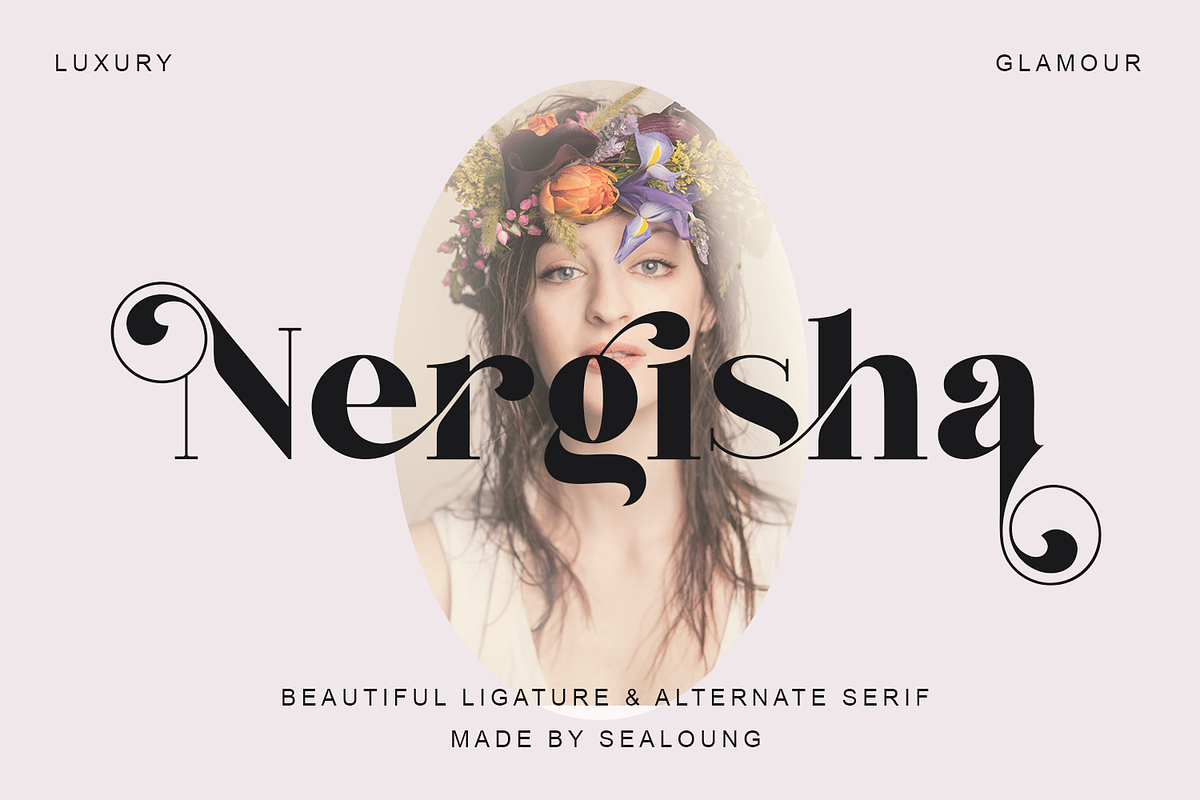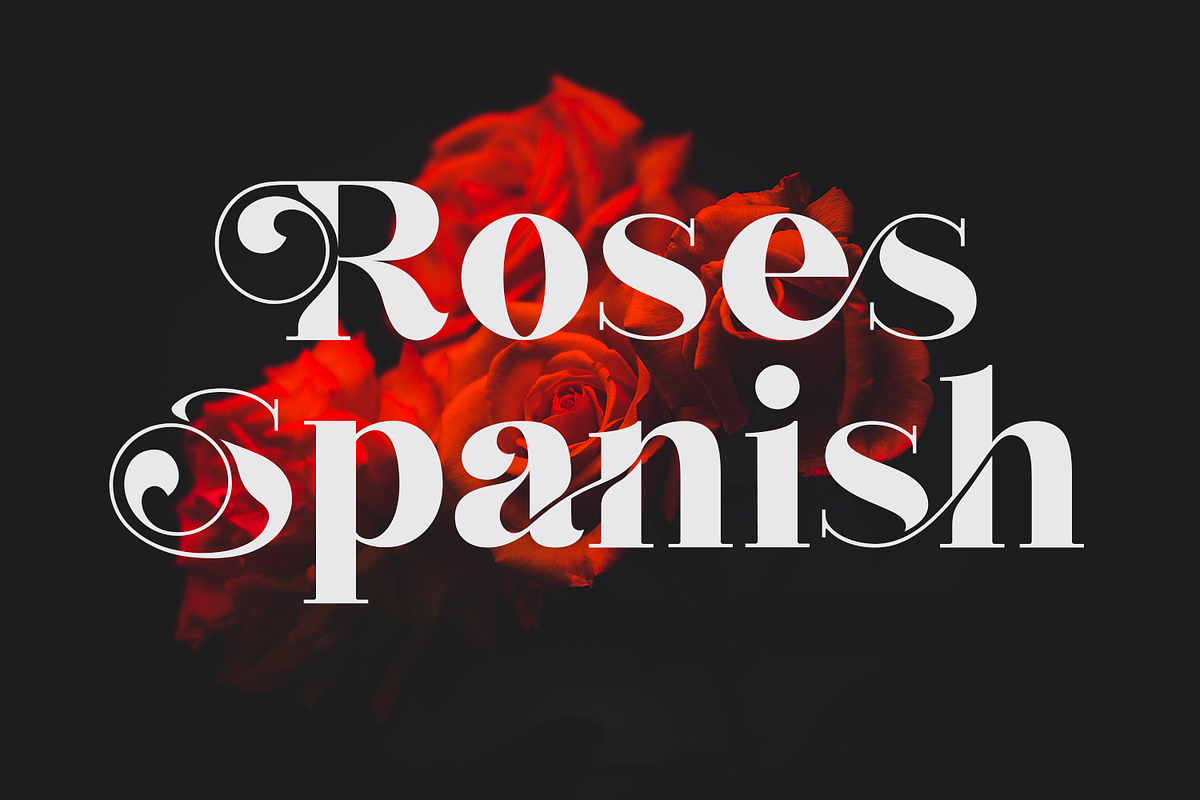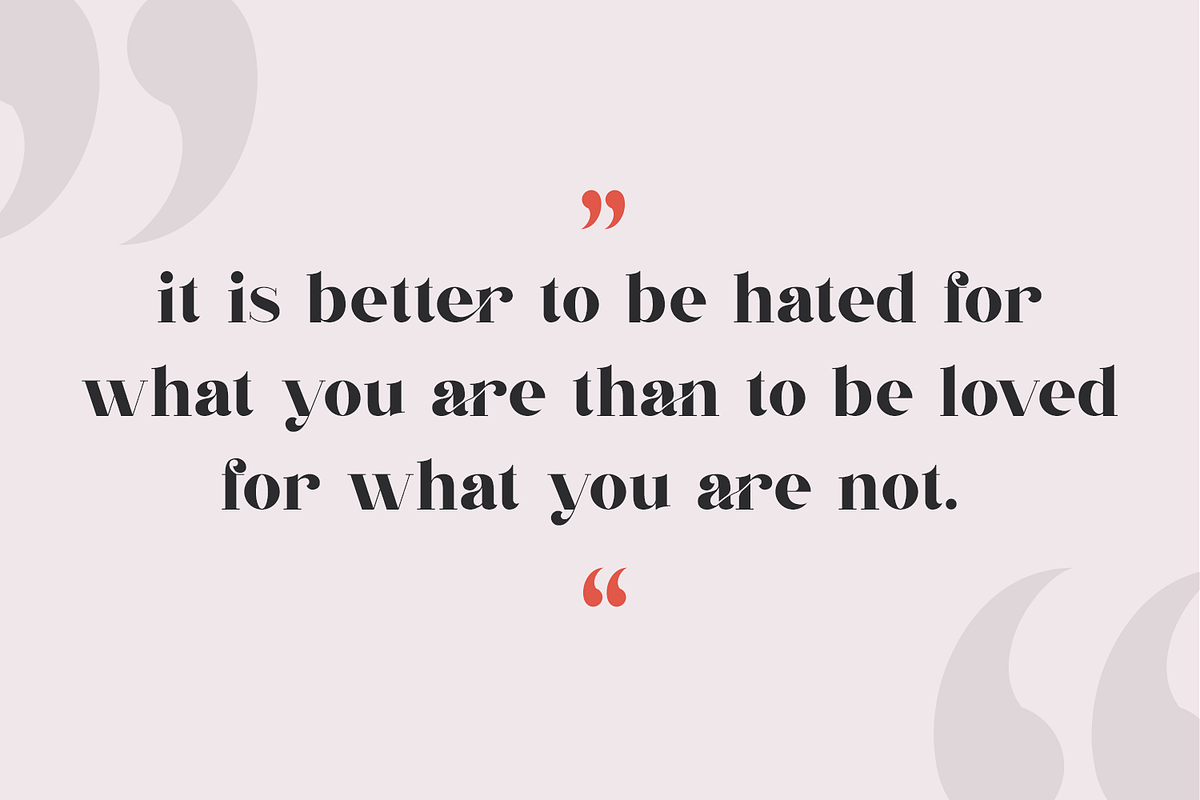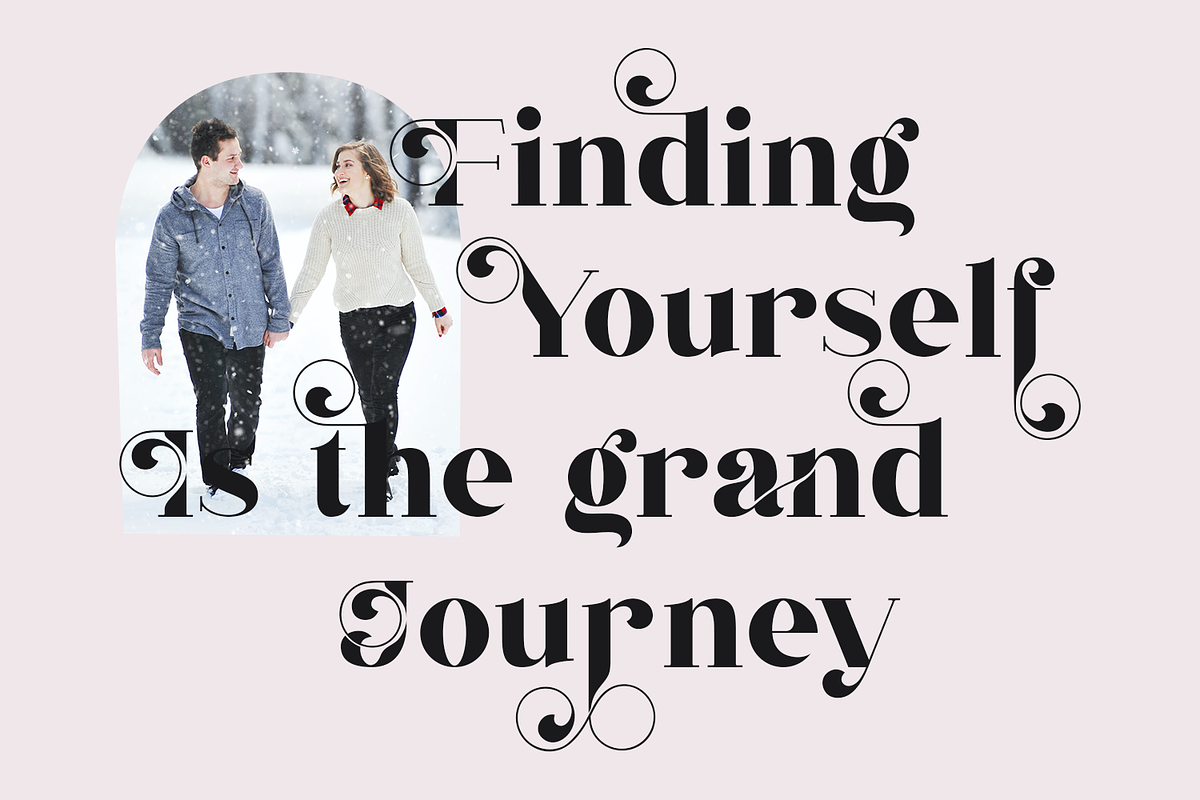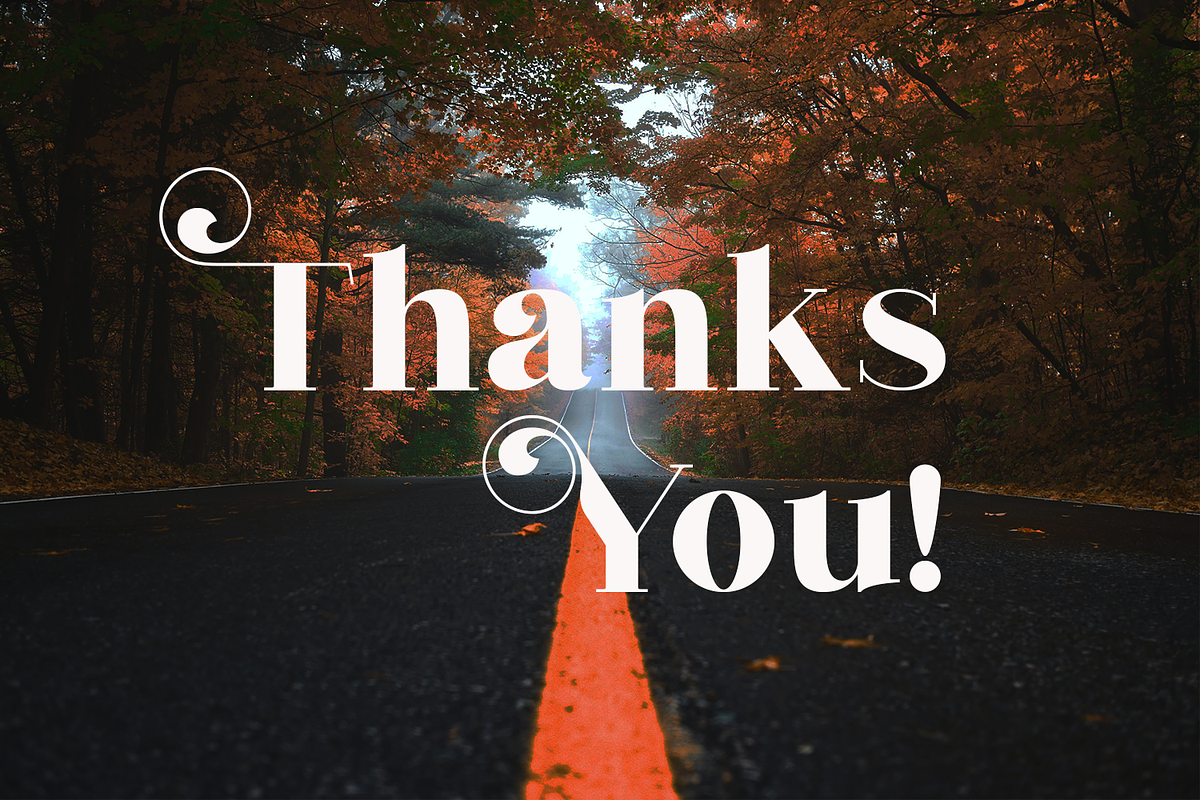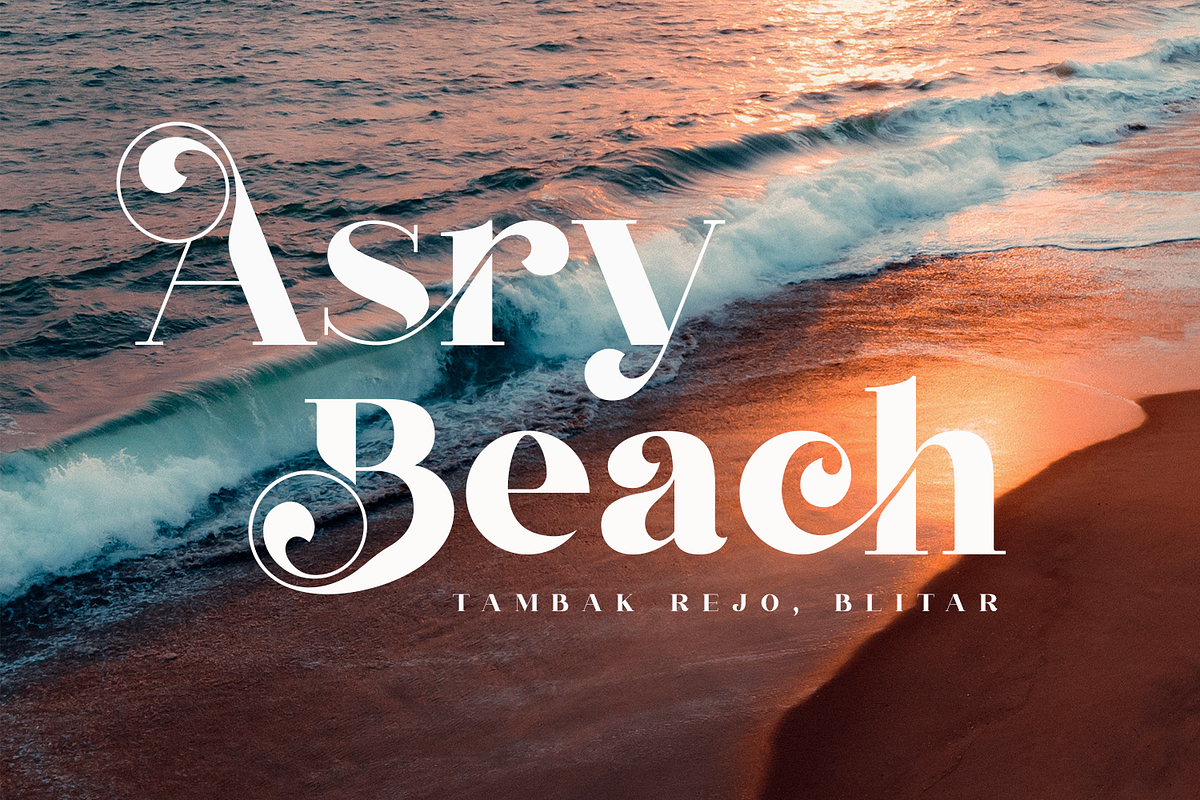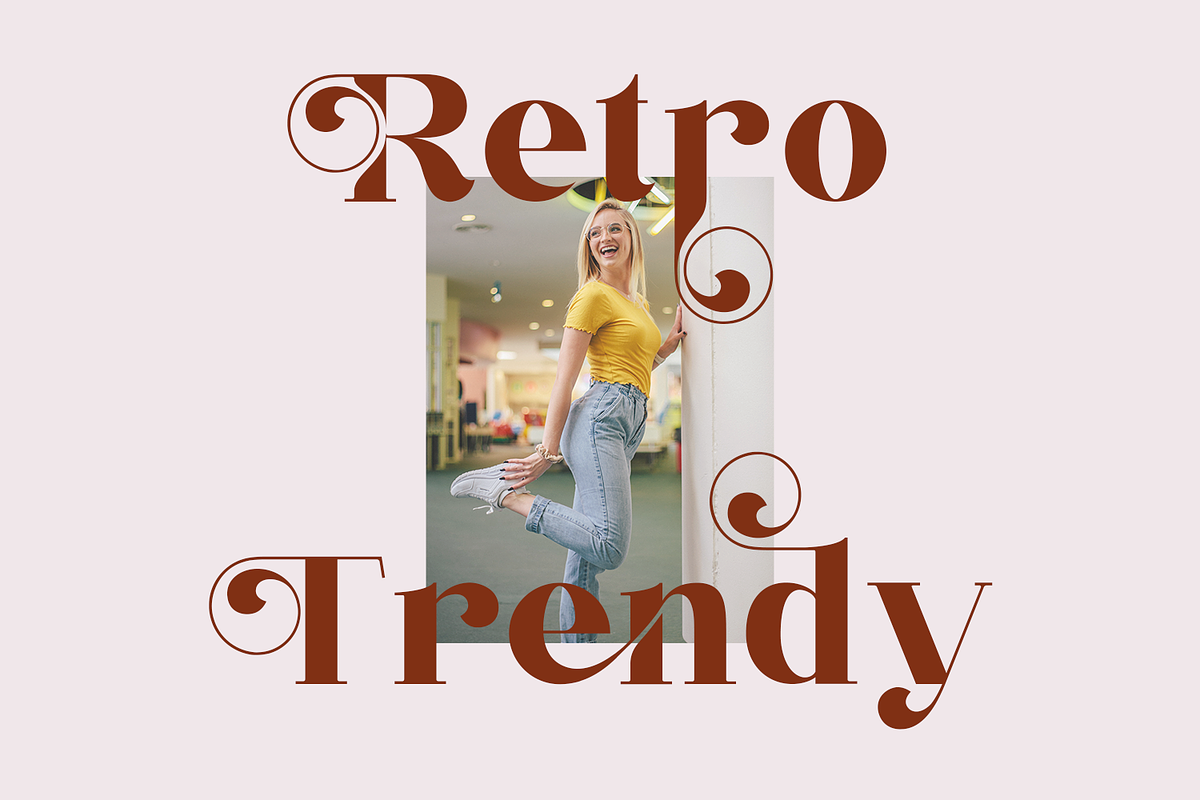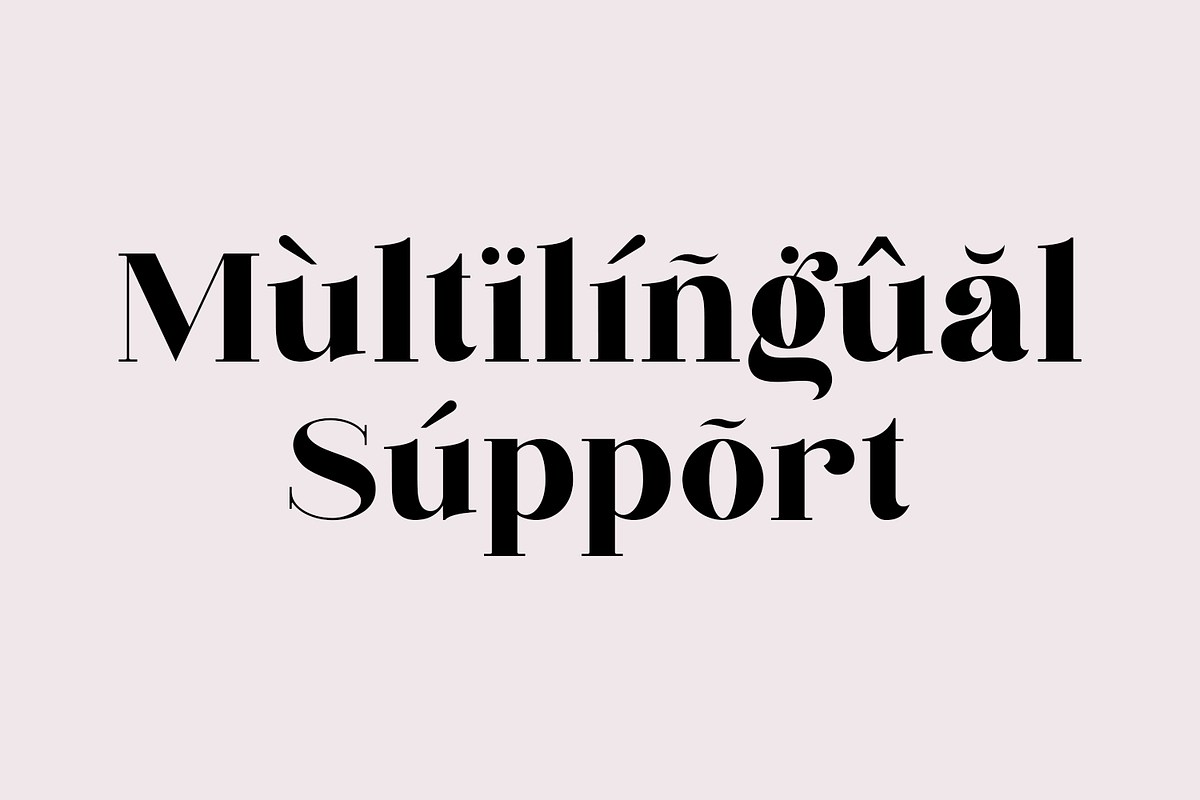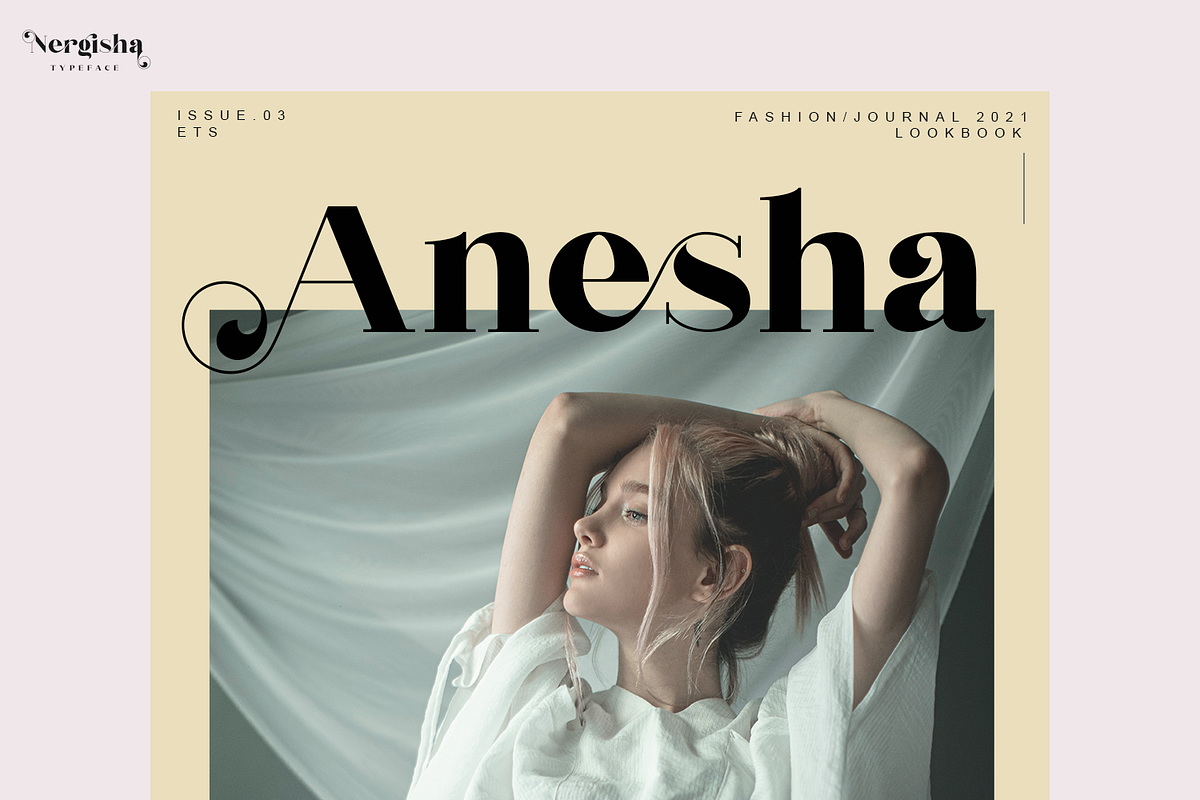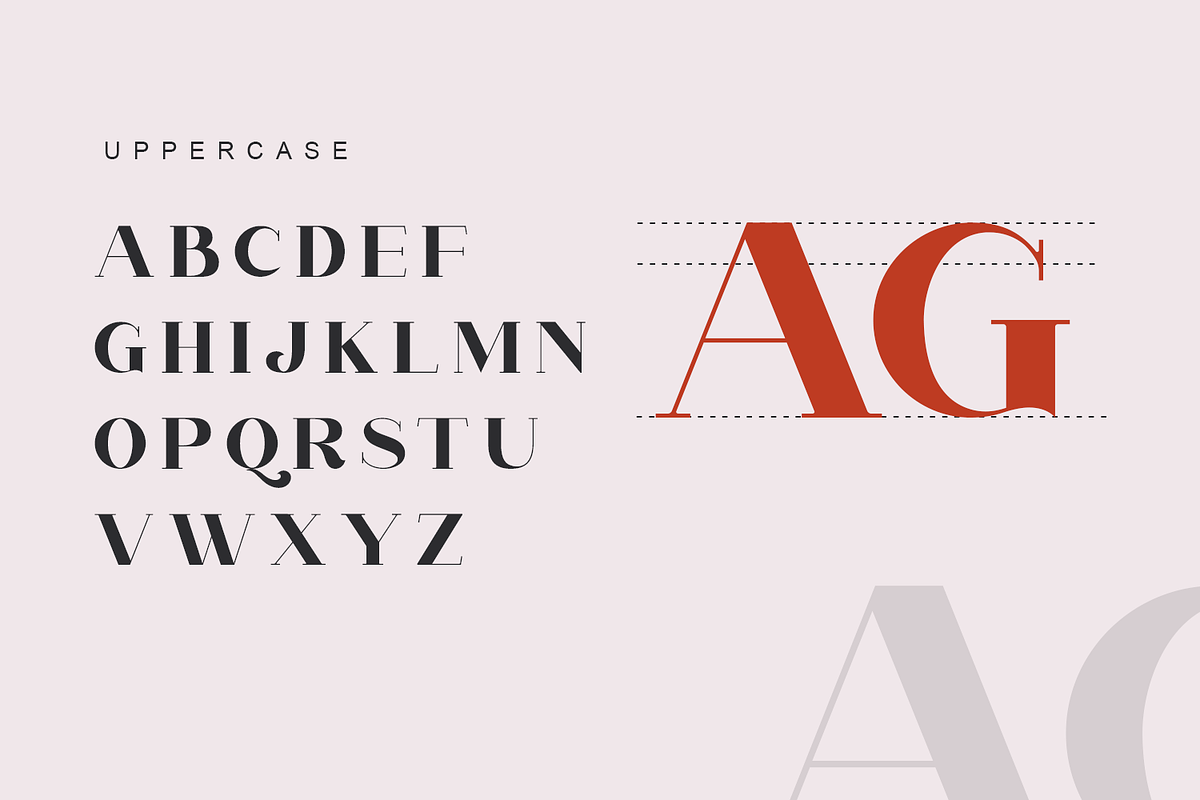
Nergisha
Nergisha font is a well-balanced contemporary font with a fancy, playful, unique, and versatile vintage serif family with beautiful ligature and 70+ alternates that you can combine to get curves and beautiful shapes easily just in seconds. It is a display font with moderate contrast that perfect for branding projects, logo, wedding designs, social media posts, advertisements, product packaging, product designs, label, photography, watermark, invitation, stationery, and any projects, it makes with a high level of legibility.